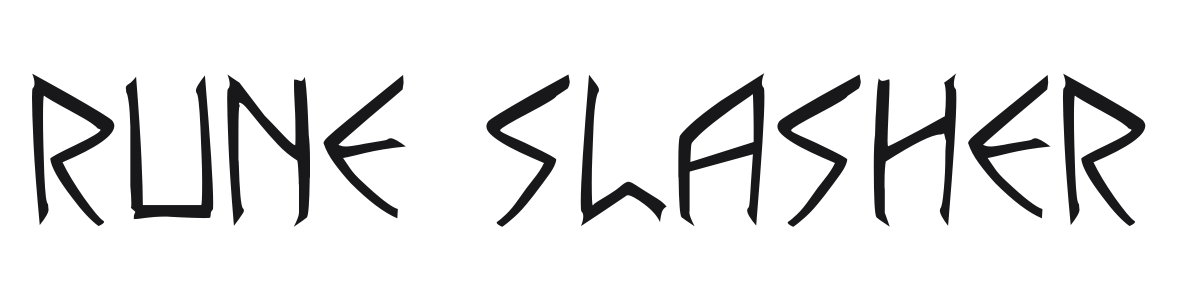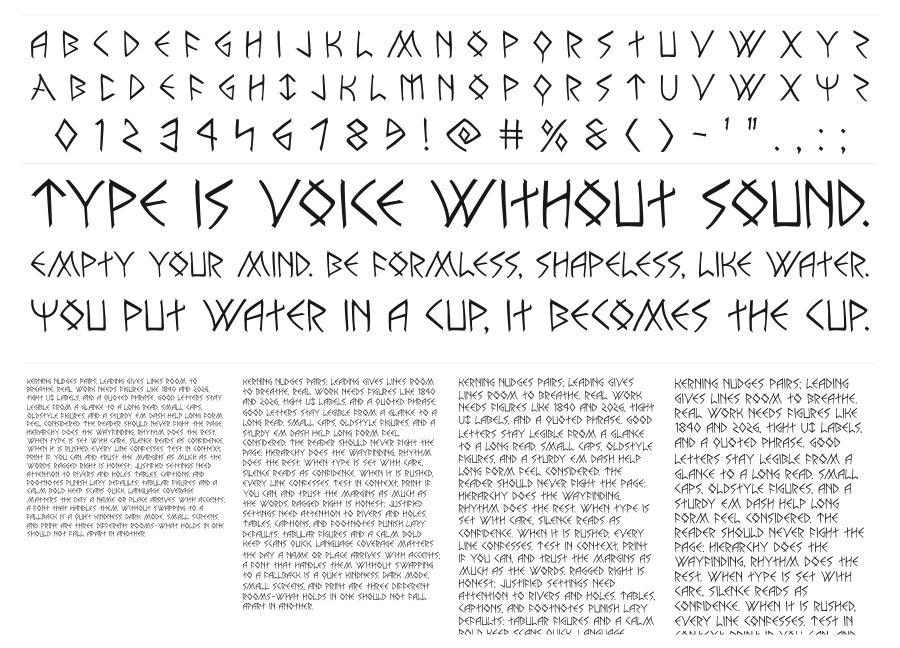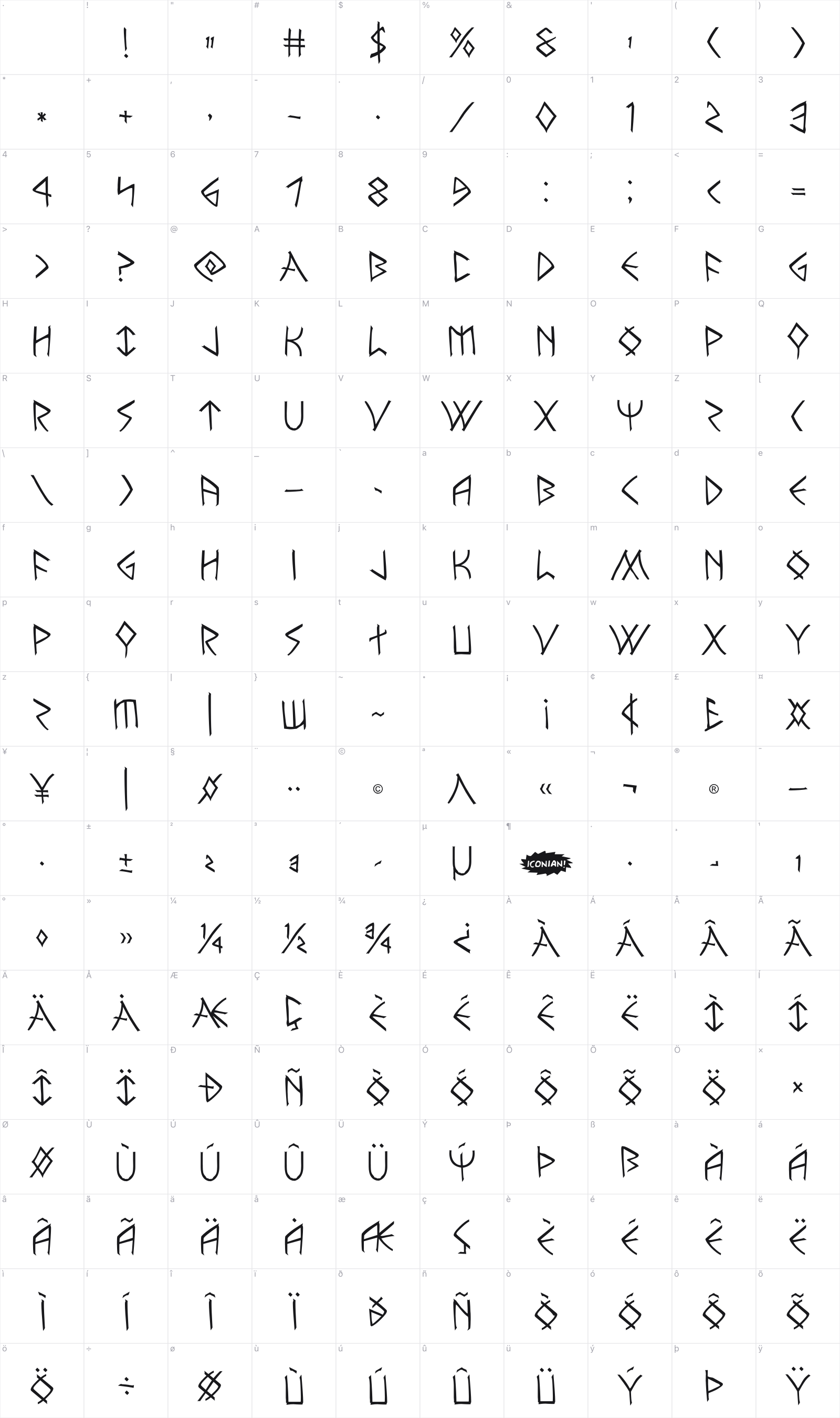
Rune Slasher
Rune Slasher is a display font that translates the visual logic of Norse runes into a full Latin alphabet. Every stroke is straight, angled, or slashed, evoking letters carved into stone or wood rather than drawn with a pen. It comes in 16 variants including condensed, expanded, italic, and 3D versions, giving it unusual range for a specialty display face.